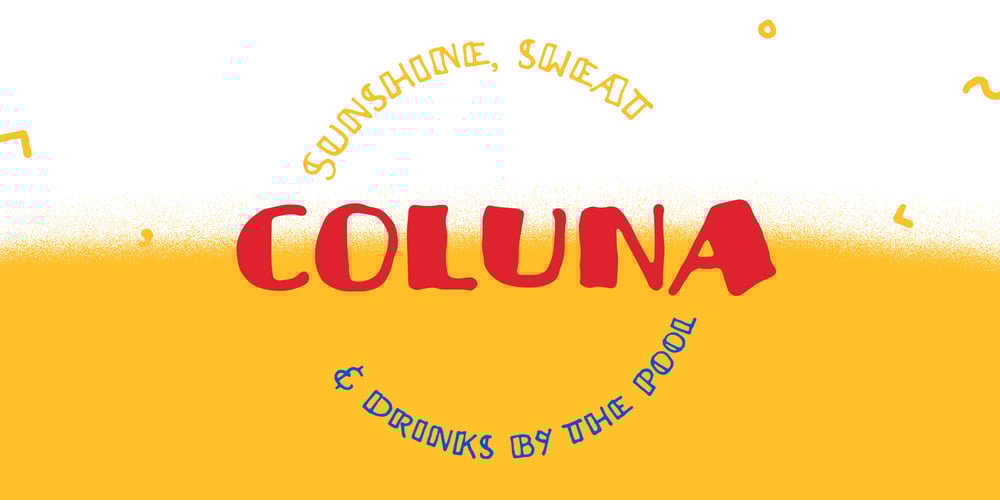
Coluna
Coluna font
Coluna Font Family was designed by Dominik Krotscheck and published by Dominik Krotscheck. Coluna contains 3 styles and family package options. Coluna is a friendly, handdrawn all caps font. Due to its playful, organic shapes it makes you think of cocktails on the beach and the earthy smell of the woods in the morning.It offers vast support for languages using the latin alphabet and comes with a couple of icons to make it even easier to complete the handmade look of your designs. Coluna is perfectly all sort of different use cases, such as birthday cards, packaging, children’s books, branding, posters, menus and many more.